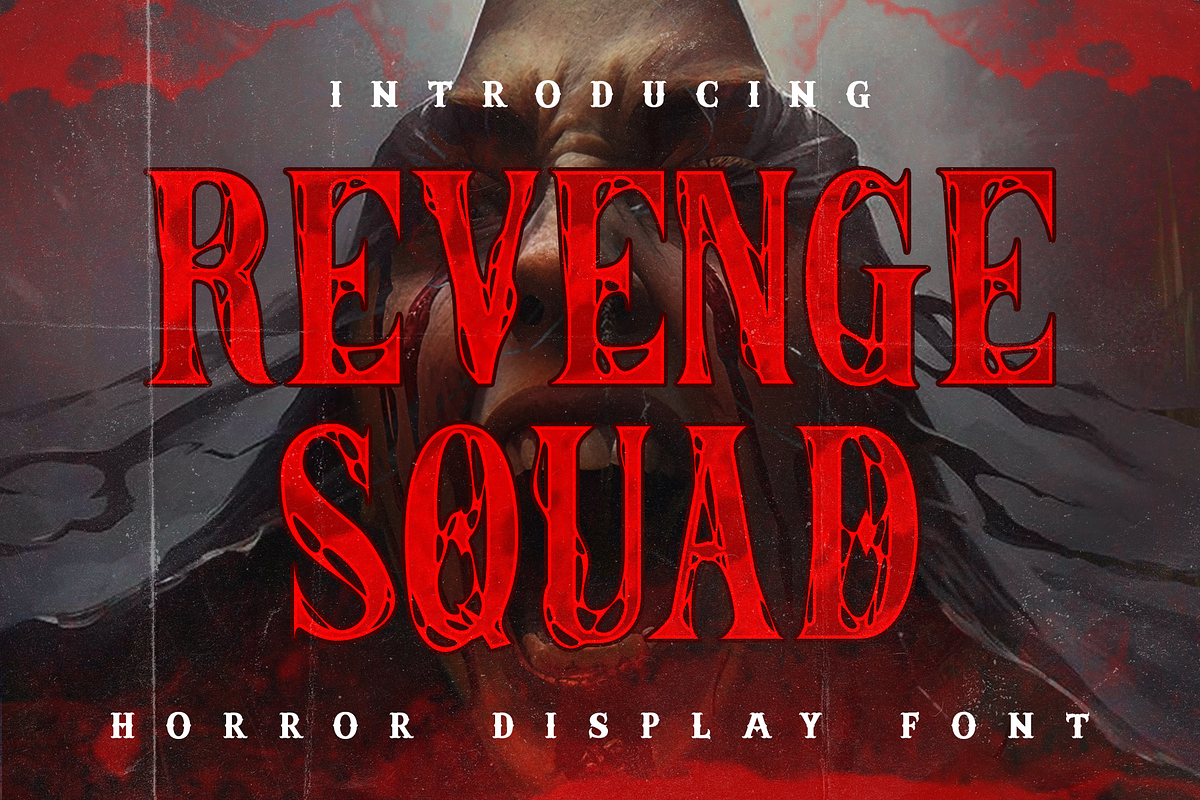
The Revenge Squad Metal Horror Font Free Download is the ultimate typeface for creating dark, intense, and dramatic designs. With its jagged edges and bold, sharp details, this font brings a unique and edgy vibe to your creative projects. Perfect for horror-themed designs, metal band logos, posters, and more, it will make your text stand out with an intense, heavy look.
Revenge Squad Metal Horror Font Free Download offers a fierce and powerful design that fits perfectly in a range of horror, gothic, and metal-themed projects. Bring your designs to life with its dark and aggressive style. Download this powerful font today and add some intensity to your creative work!